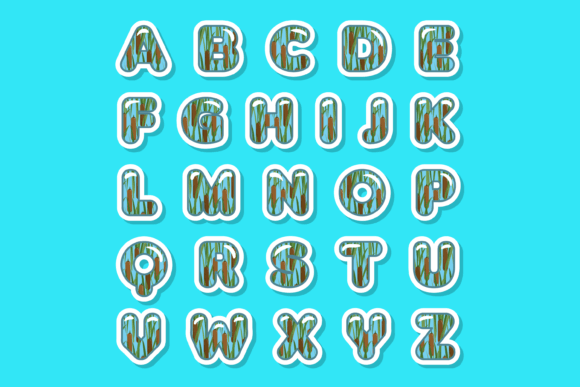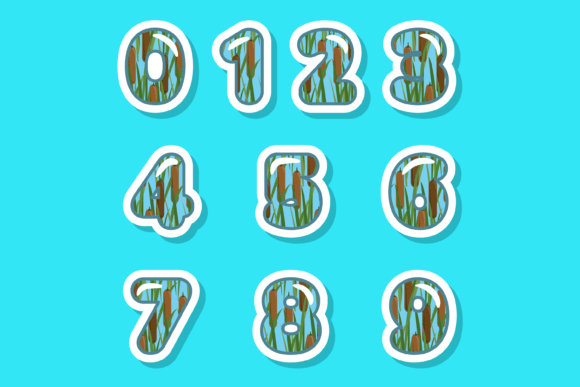
Adding a Touch of Whimsy to Your Creations
There’s something special about a project that comes together just right – the colors, the textures, the overall aesthetic. It’s that moment when you step back and think, ‘This is perfect.’ For designers and crafty enthusiasts alike, finding the perfect font can be the key to unlocking that magic.
Enter the Cattail Font, a delightfully playful color font that’s sure to bring a smile to your face. With its unique, hand-drawn style, this font is perfect for adding a touch of whimsy to custom designs, DIY crafts, and any project that needs a little extra love. Whether you’re a seasoned pro or a creative newcomer, the Cattail Font is a valuable tool in your design arsenal.
Cattail Font Key Features
- Font Family: Cattail Font is a unique, hand-drawn font designed for use in digital and print media.
- Unique Characteristics: The Cattail Font features a distinctive, whimsical style with intricate details and flowing lines, making it ideal for creative projects.
Cattail Font Review
I’ve had the chance to work with the Cattail Font, and overall, I’m impressed. ✨ The font’s unique design makes it perfect for creating eye-catching headings and titles. It’s a great choice for those looking to add a touch of elegance to their projects.
- ✨ Unique Design: The Cattail Font has a distinctive look that’s sure to grab attention.
- ✨ Legibility: The font is easy to read, even in smaller sizes.
- ✨ Flexibility: Cattail works well in both digital and print projects.
However, there are a few limitations to consider: ⚠️ The font may not be the best choice for large blocks of text, as it can become overwhelming. Additionally, the font’s irregularities may not be suitable for projects where a more traditional font is needed.
Overall, I think the Cattail Font is a great addition to any designer’s toolkit. While it may not be the best choice for every project, it’s perfect for those looking to add a touch of whimsy and elegance to their work.
Tips for Getting the Most Out of Cattail Font
Here are a few tips for getting the most out of the Cattail Font:
- Use it for titles and headings to add a touch of elegance.
- Pair it with a bold font for contrast and visual interest.
The Cattail Font is perfect for:
- Wedding websites and blogs.
- Artistic and creative projects.